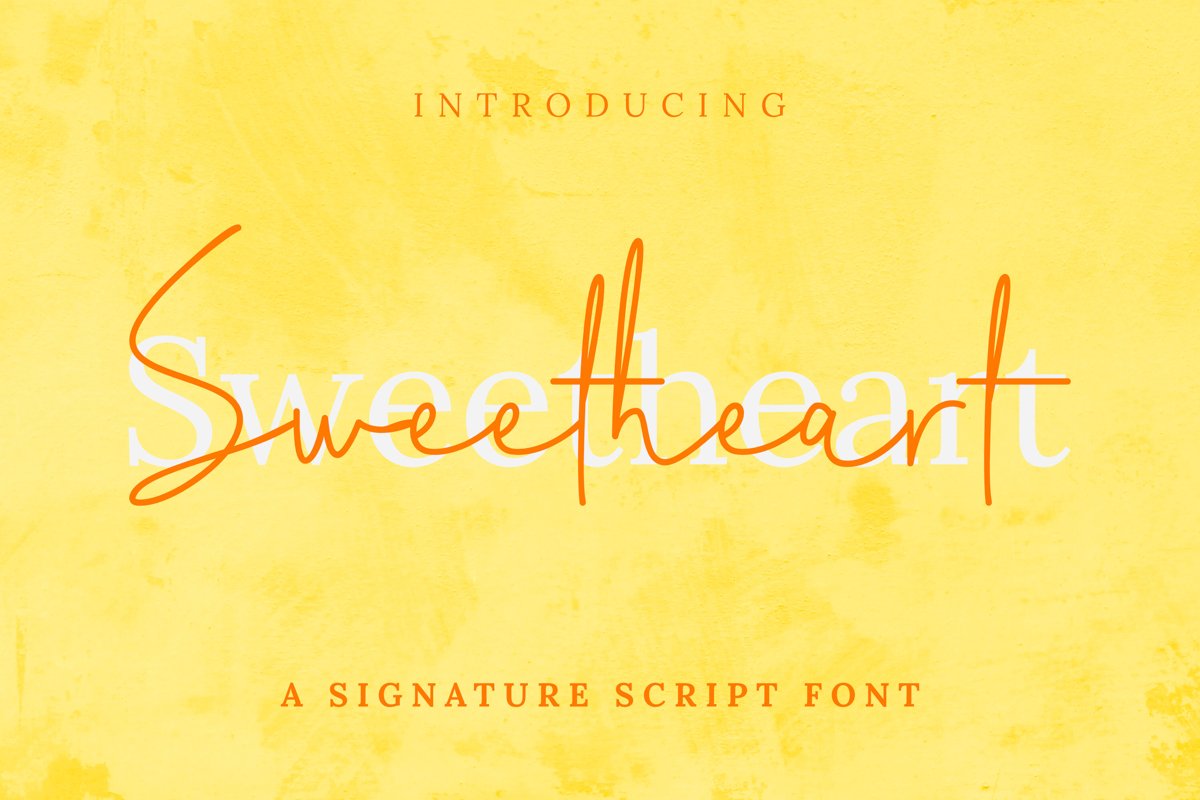
Sweetheart Font
Suitable for some designs such as the logotype, brand, packaging, quotes, music poster, t-shirt, cover book and more custom design. The features uppercase, lowercase, numeral, punctuation & symbol, multilingual support.